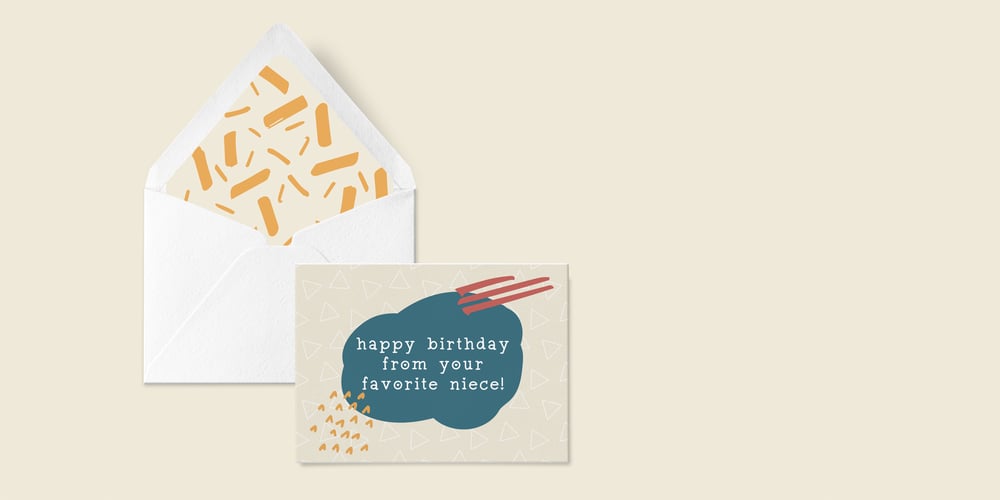
Adorkable Font Family was designed by Mikko Sumulong and published by Mix Fonts. Adorkable contains 1 styles and family package options. Mix Adorkable was handwritten on an iPad Pro using my Mix Streamline Procreate Brush. The characters were then cleaned up, and converted into a font. Mix Adorkable contains alternates for certain letters, using a heart in lieu of dots or circles. Mix Adorkable Love is the same font using the heart-glyphs as defaults—for those who can’t access alternates.